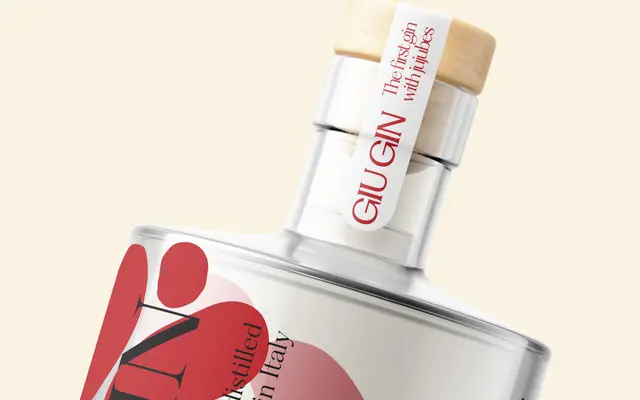
Fragment
Pangram Foundry · Francesca Bolognini, Mat Desjardins · 2023
A four-family type system drawing on 19th-century lettering and signs, pairing a grotesque sans, a high-contrast serif, a mid-serif called Glare and a text cut across 64 styles plus variable cuts.
Designed by Francesca Bolognini and Mat Desjardins, Fragment ties four distinct but complementary subfamilies into a single collection: a strong sans, a high-contrast serif, an intermediate mid-serif named Glare, and a text-optimised cut. Each family runs to 18 styles with italics and a variable axis, and every weight ships 581 glyphs with alternates. The vintage lettering reference gives the system a consistent historical character that prevents the four voices from feeling arbitrary.
Fragment spans four distinct subfamilies including a high-contrast serif, a mid-serif called Glare, a grotesque sans and a text cut, all rooted in 19th-century lettering traditions. The display-oriented orientation and vintage lettering revival make 'display' the most accurate primary category, though it functions across multiple genre boundaries.